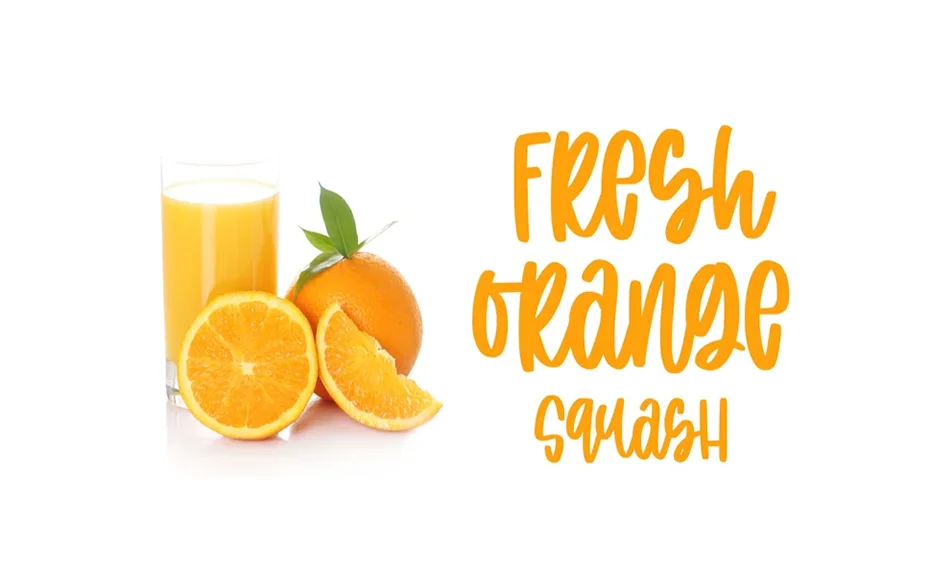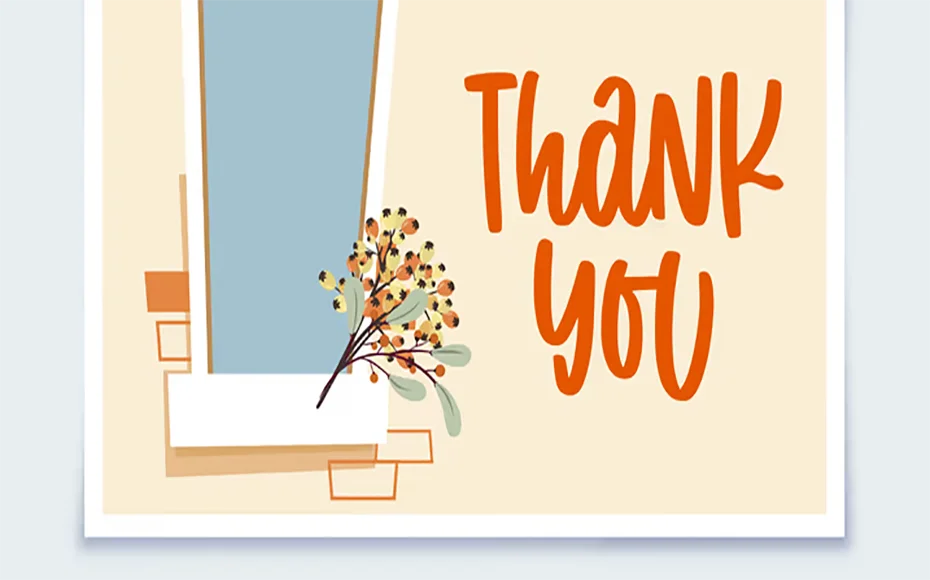
Sweet Doughnut Font is a new quickly handwritten typeface duo that keeps it casual. Though the lettering has a carefree feel about it, it is neat enough to be read by all.
Abo Daniel Studio, a well-known studio is one that takes the credit for creating and sharing this font.
All the textures of this typeface are designed with medium strokes in which he puts more curves. Just to maintain the sweetness of the whole font.
While improper baseline adds extra creativity to the design. In each uppercase & lowercase, he adds an extra swash which helps to connect characters with each other.
You can clearly see that this script’s handwritten typeface features an awesome and elegant texture.